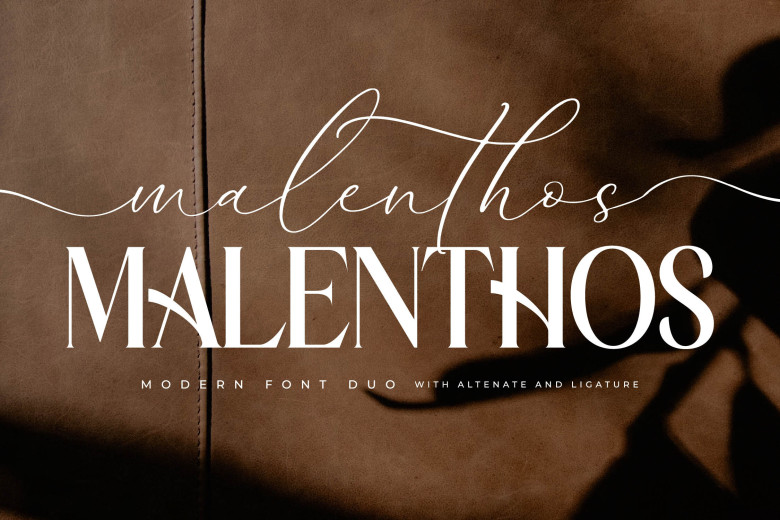
Malenthos Font
Malenthos Font Duo is proudly presented: an elegant script and serif font with distinctive style and modern appearance, perfect for sophisticated logo design, movie/book name creation, fashion magazine articles, clothing labels and lettering needs, quotes etc.
Malenthos Font Duo